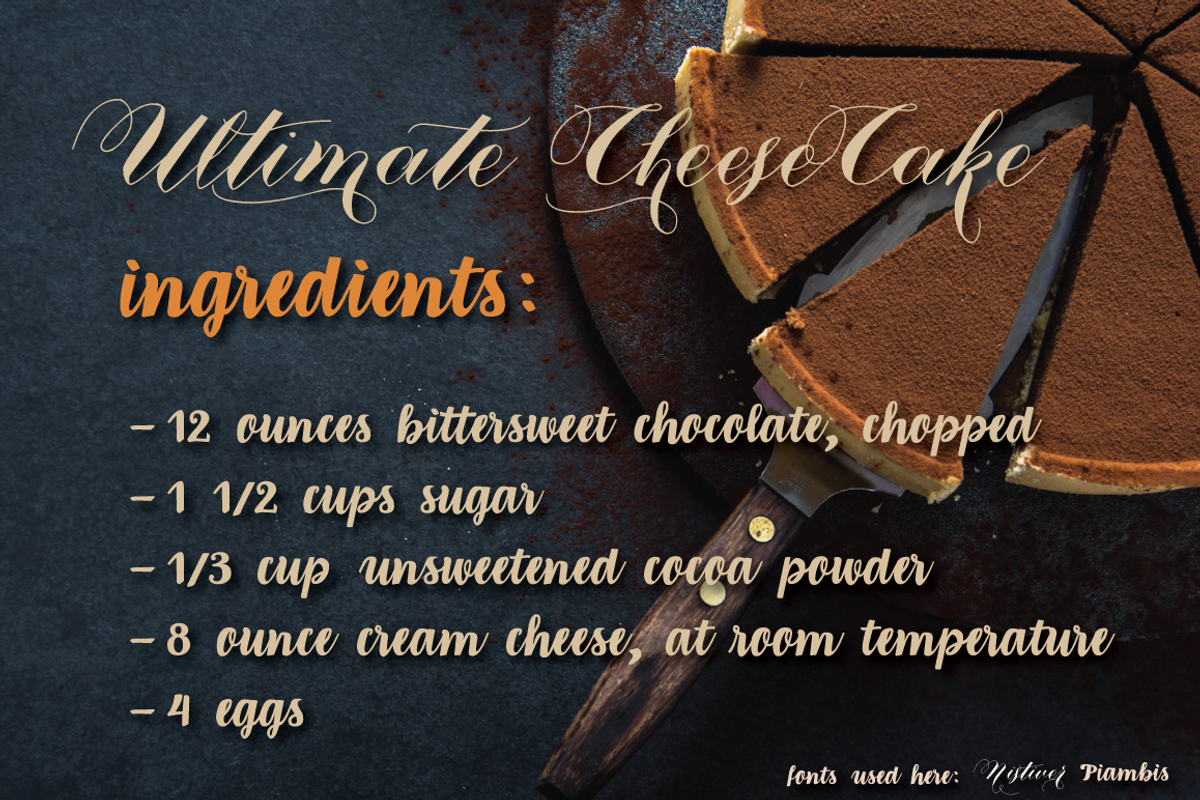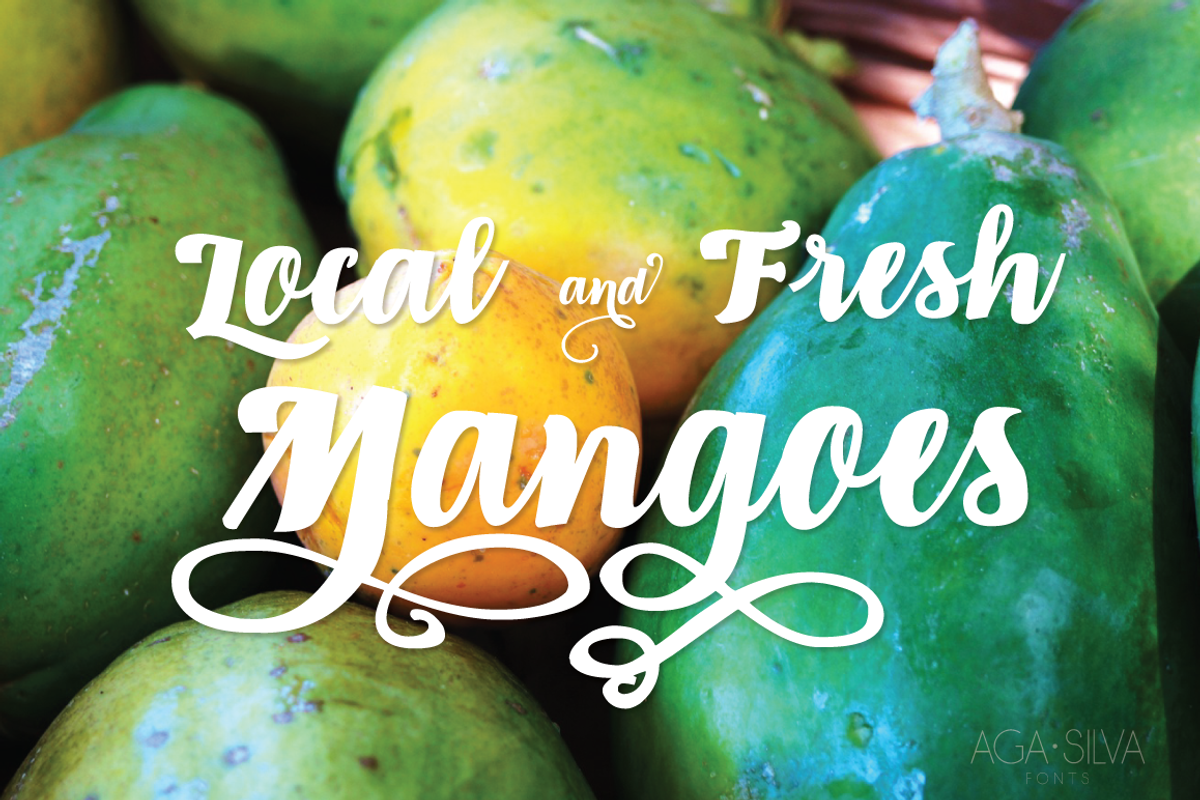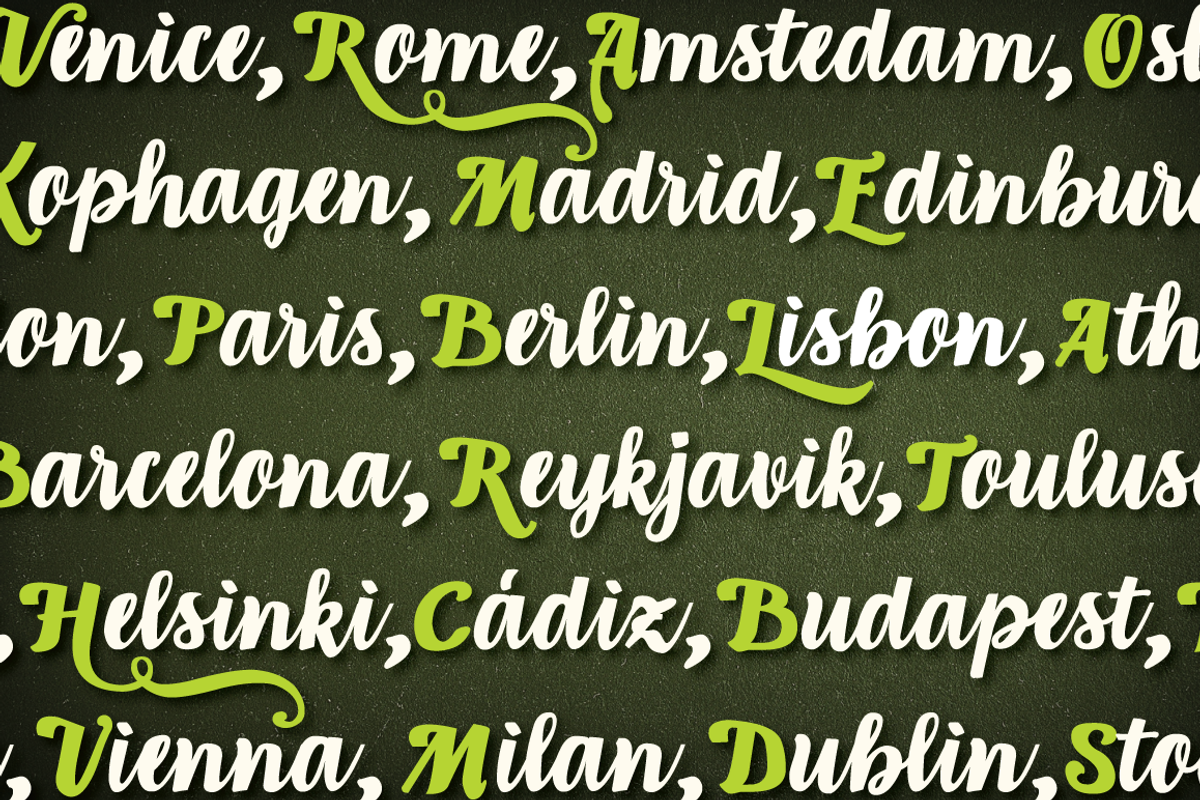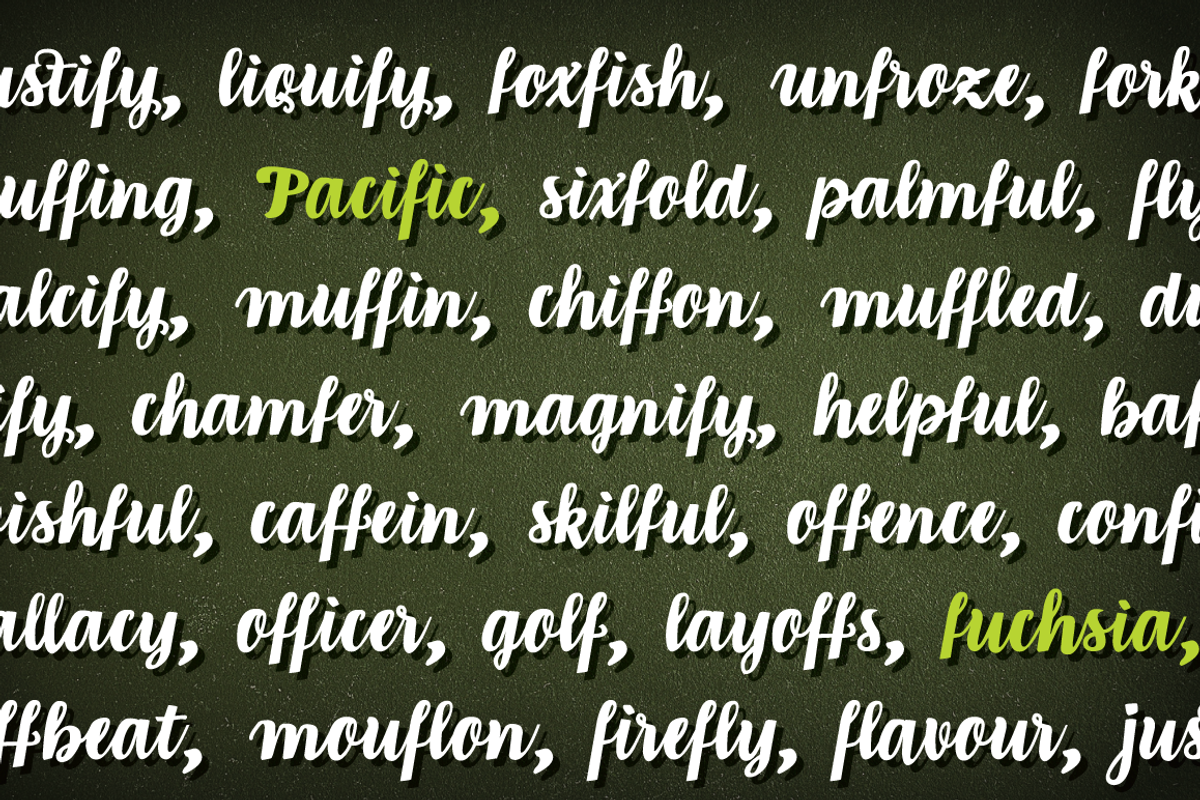
Piambis open type font
Piambis open type font by Aga Silva is a font selected for branding, posters, packaging, typography.
- Piambis Regular is handwritten font that boasts great variety of glyphs - many of which are fancy alternates for standard letters (shown in
- About the family: The chief difference between the files in the family are finishes to the capital letters (in all languages) and appearance
Why Piambis open type font is worth a look
Piambis open type font by Aga Silva fits naturally into Branding, posters, packaging, typography.